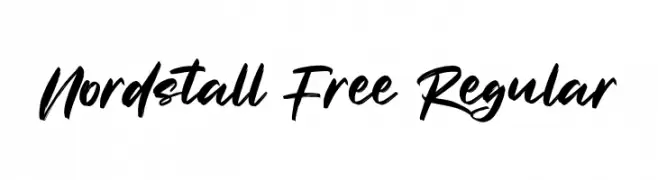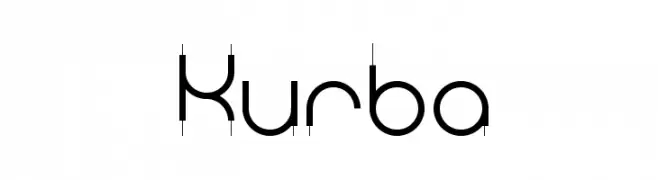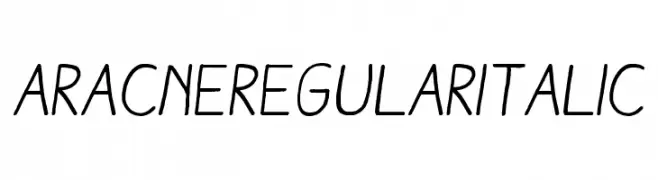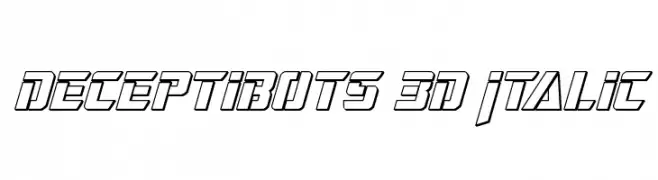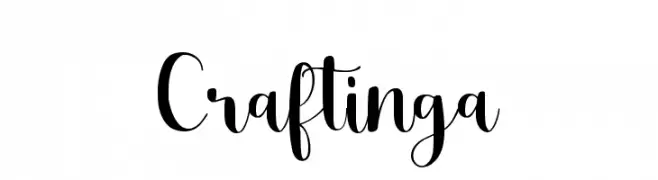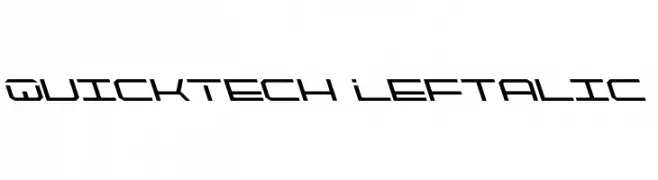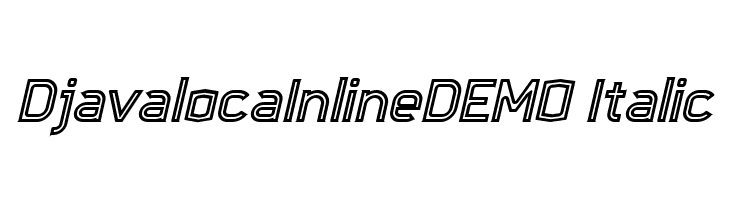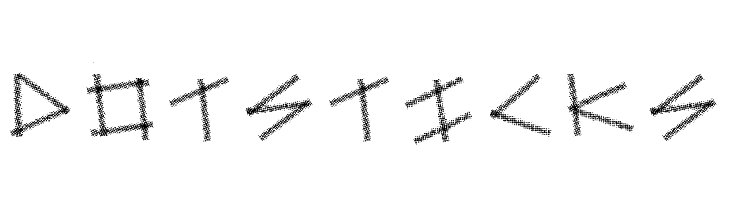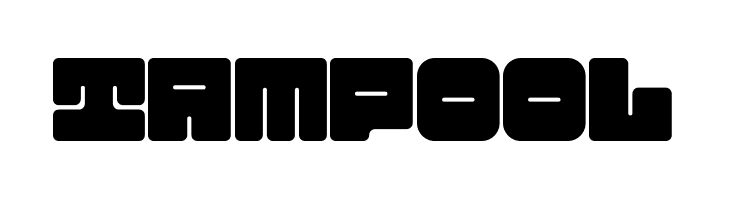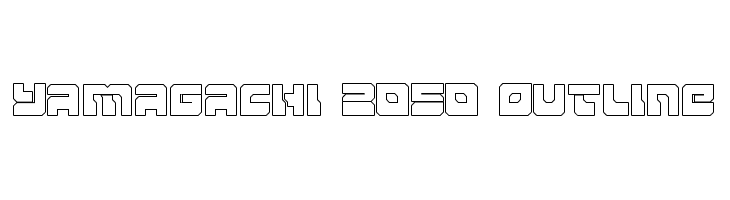
A bold, cursive font with dynamic, sweeping strokes and a modern, artistic flair.
A modern, geometric font with a futuristic and versatile design.
A casual, handwritten font with a slight slant and consistent stroke width.
A graceful calligraphic font with elegant loops and fluid strokes.
A sleek, modern thin italic typeface with balanced spacing and fluid design.
A bold, playful font with a whimsical, hand-drawn style.
A decorative cursive font with elegant loops and swashes.
A bold, futuristic font with a geometric and impactful style.